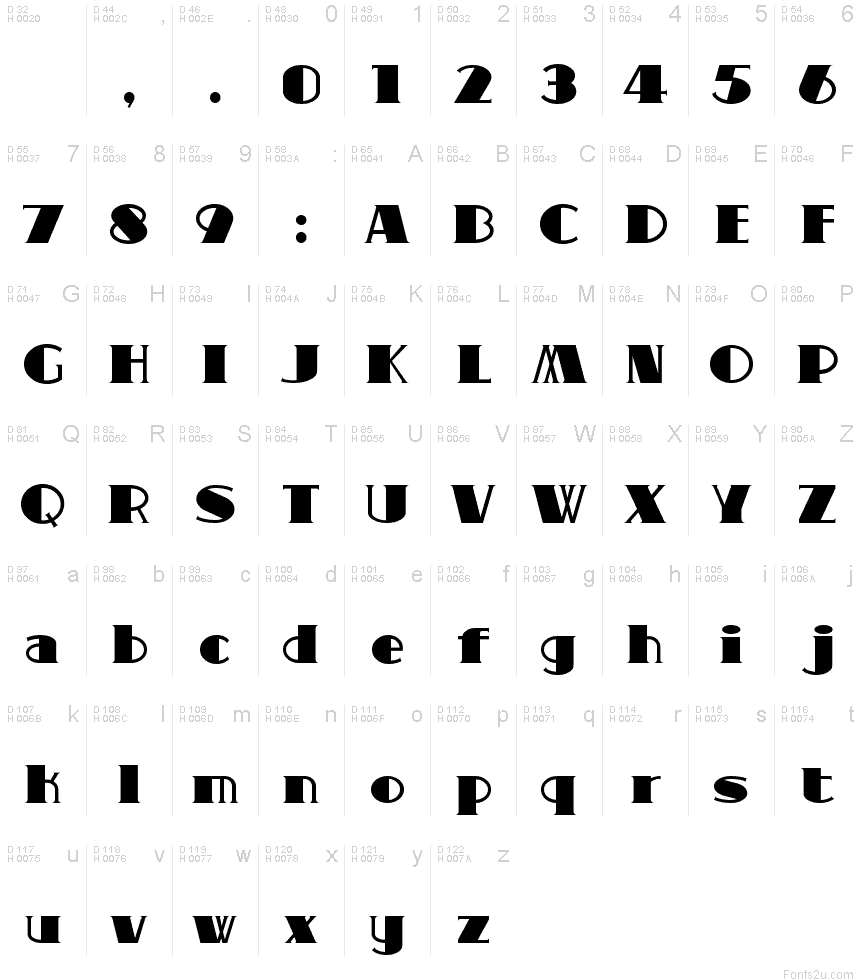
Comic by Masato Shimojima of Design Studio Creation is a free high-contrast serif display font built from sweeping curves and startling shifts in stroke weight. Its broad, rounded forms narrow suddenly into fine lines.
A fashion magazine cover is its strongest setting, since the dramatic proportions have the look of specially drawn masthead lettering. The same refined eccentricity suits perfume and cosmetics packaging, boutique branding, and promotional posters for theater or music events. In a product identity, those extreme stroke changes can become a recognizable signature rather than ordinary labeling.